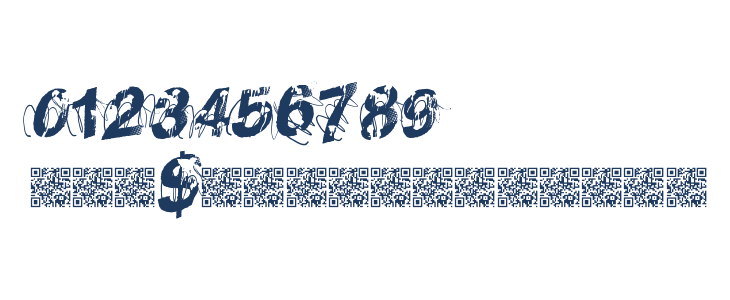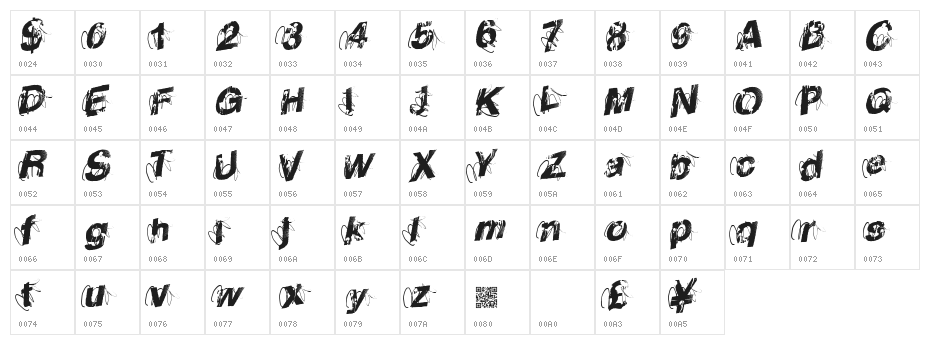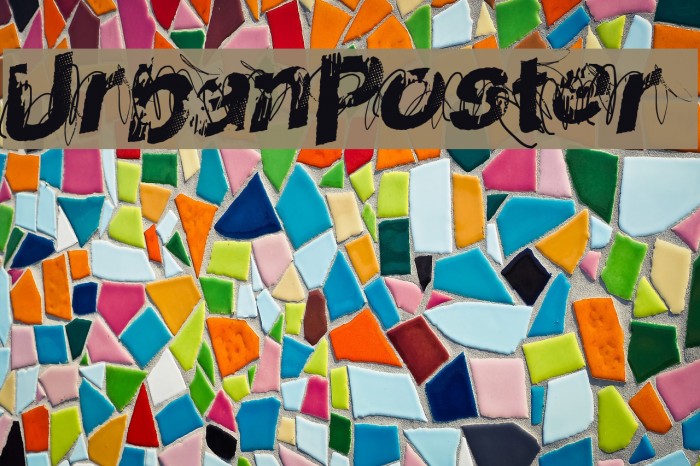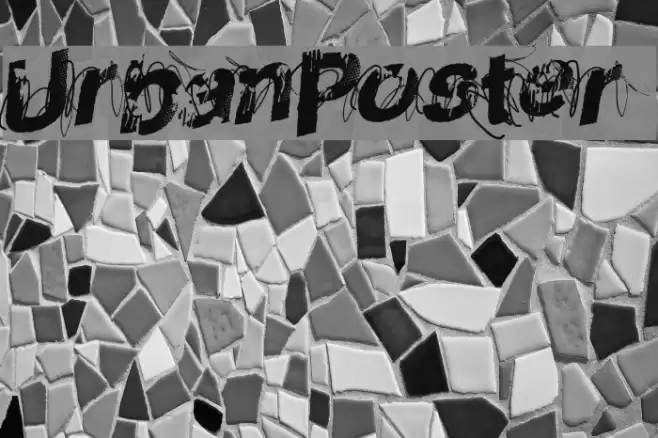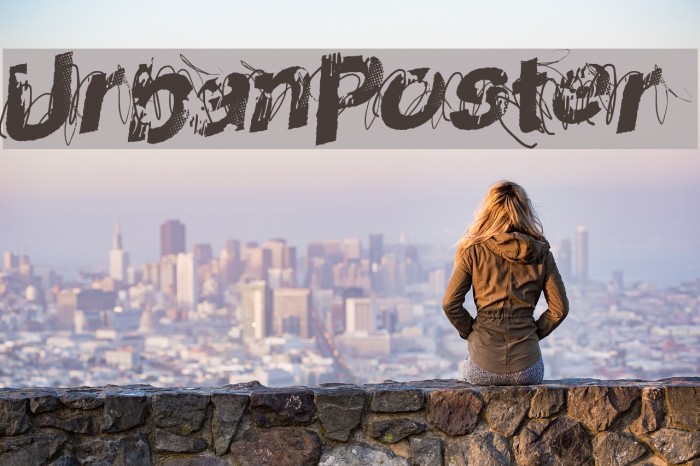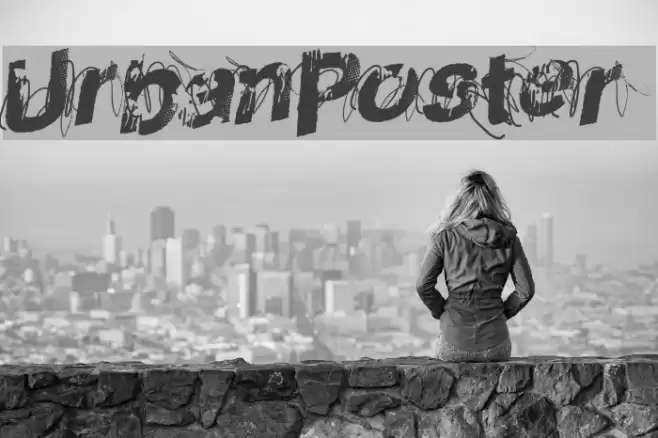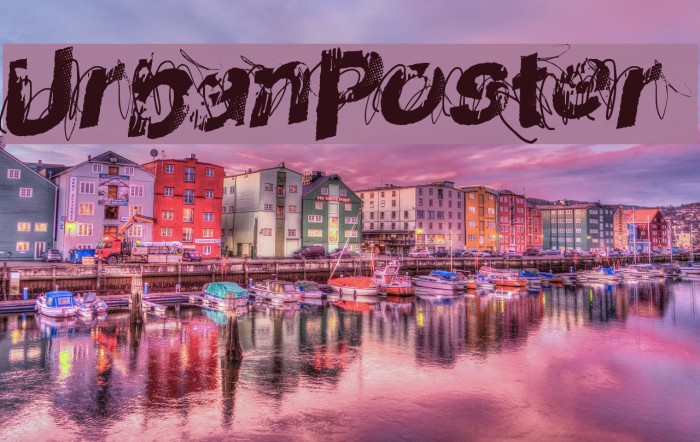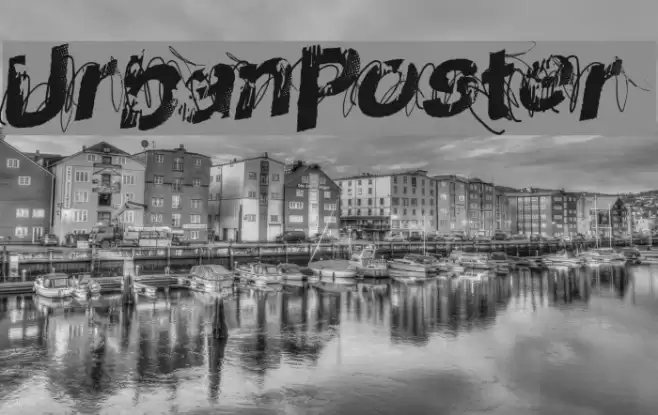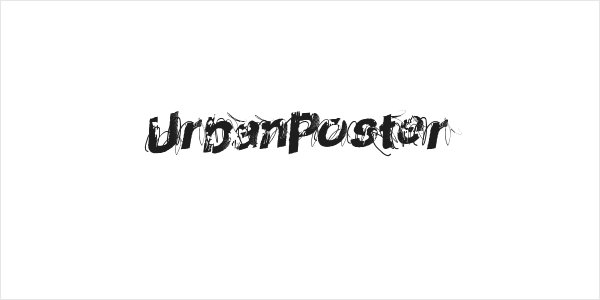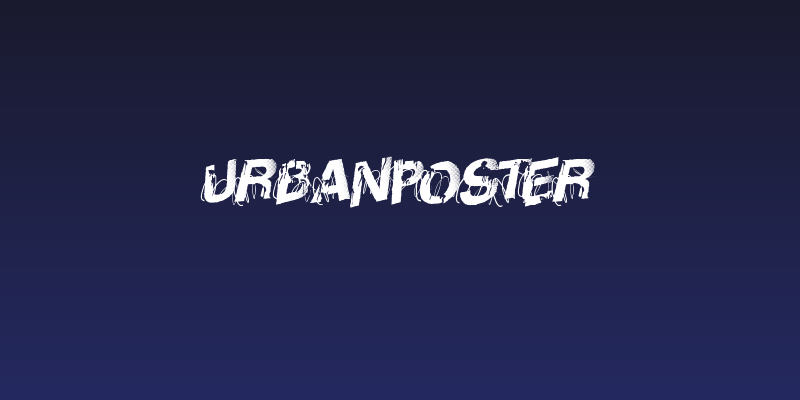
UrbanPoster Font
UrbanPoster Description
This font exhibits a bold, urban aesthetic with a graffiti-inspired style. The characters are heavily stylized, featuring a mix of sharp angles and rounded edges, creating a dynamic and energetic appearance. The letters are filled with intricate patterns and textures, reminiscent of street art, giving each character a unique and edgy look. The overall design is chaotic yet cohesive, with a sense of movement and vibrancy. The uppercase and lowercase letters maintain a consistent style, while the numbers and special characters integrate seamlessly into the overall design. This font is perfect for projects that aim to capture the essence of urban culture and street art.
| Overall Style | Urban, Graffiti, Energetic |
| Proposed Projects | Ideal for urban-themed posters, streetwear branding, music album covers, and graffiti art projects. |